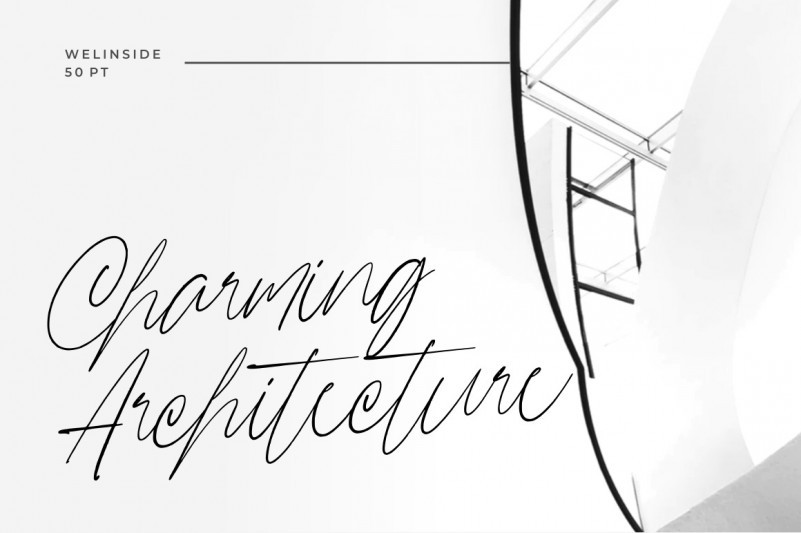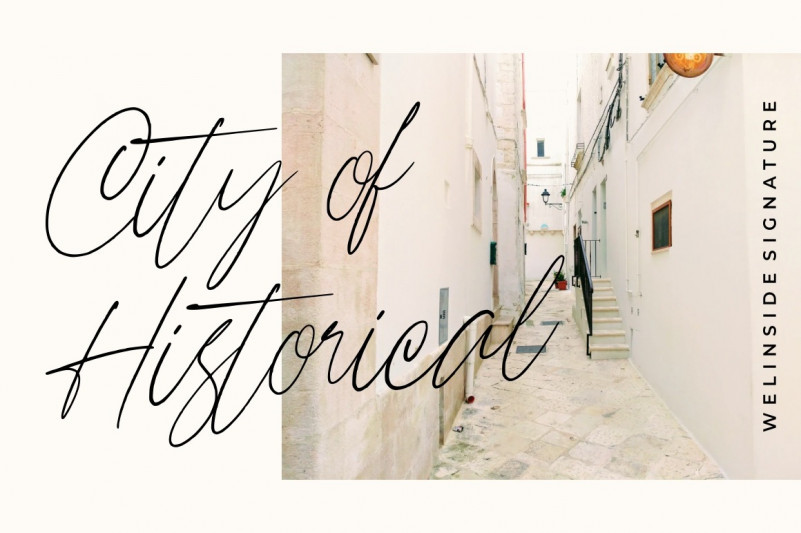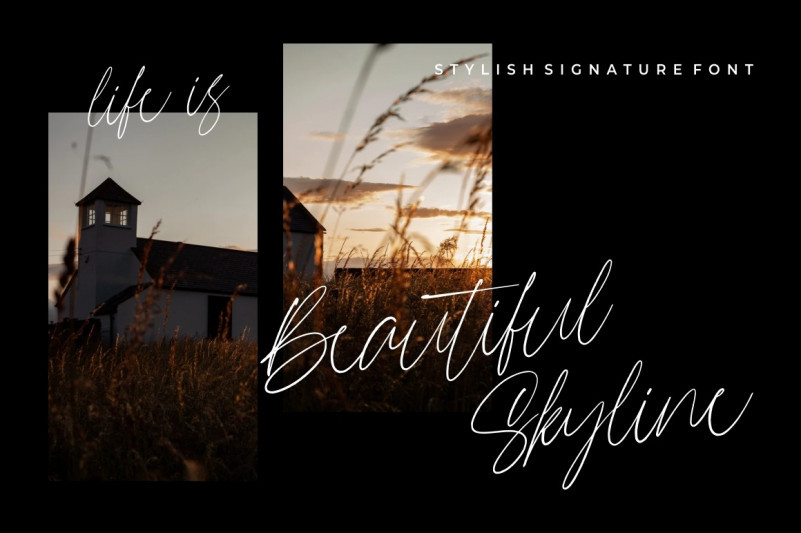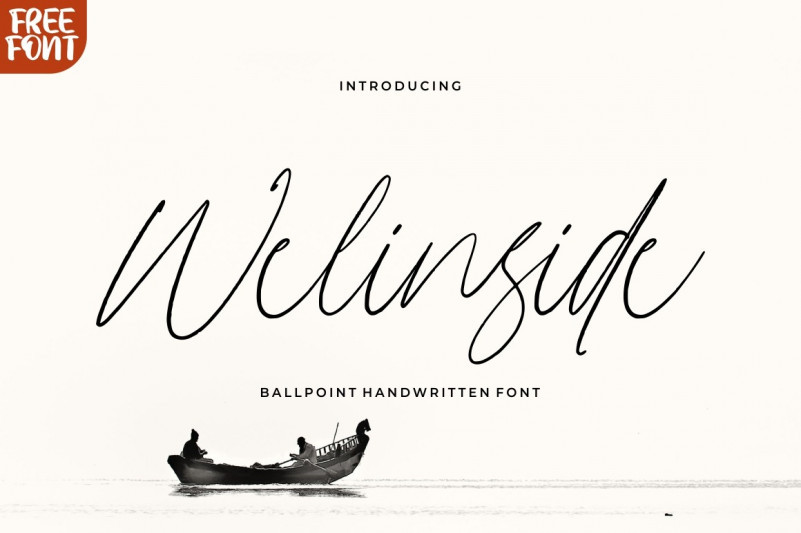
Welinside Script Font
Hi Welcome! Thank you for looking Welinside Font. This a work that is purely a result of handwriting, has a natural characteristic. Inspired by luxury and branded stuffs make this font looks classy and awesome in many way to your latest project! It’s designed by Good Java Studio. Welinside Script work that is purely a result of handwriting, has a natural characteristic. this is perfect for invitations, signatures, blogs, social media, business cards, product brands.